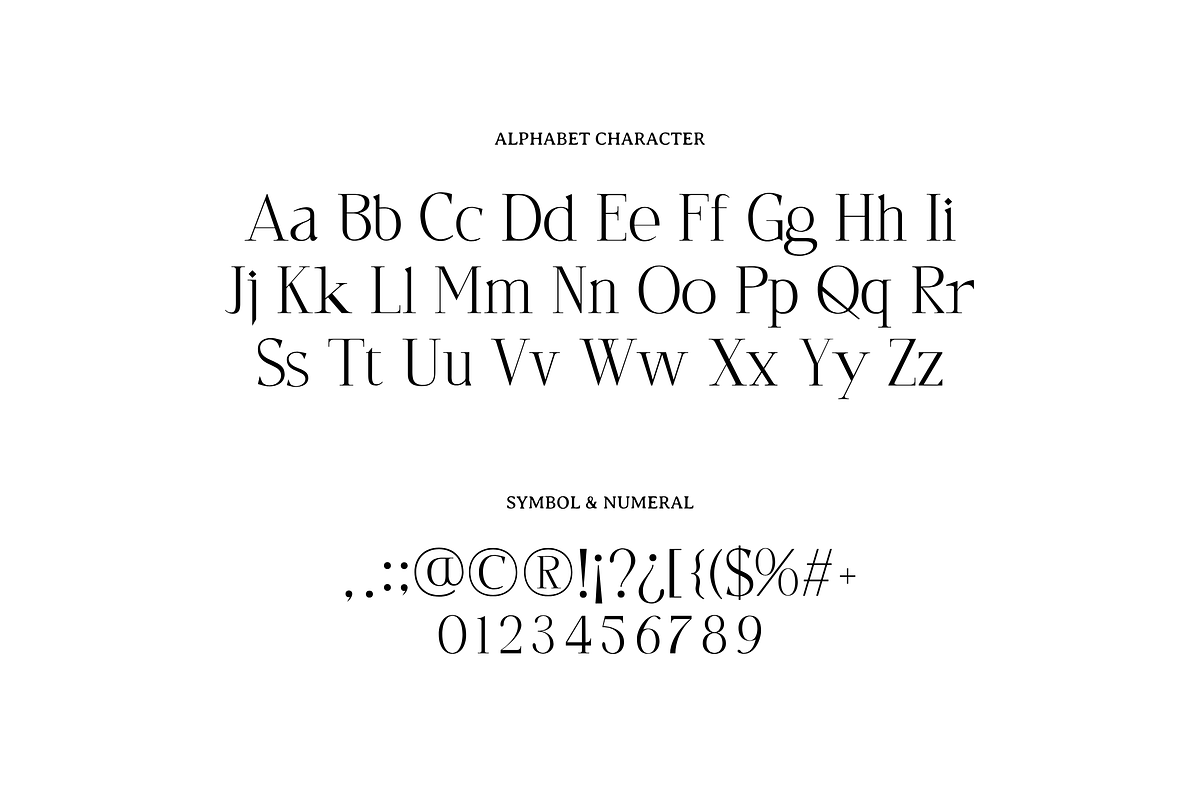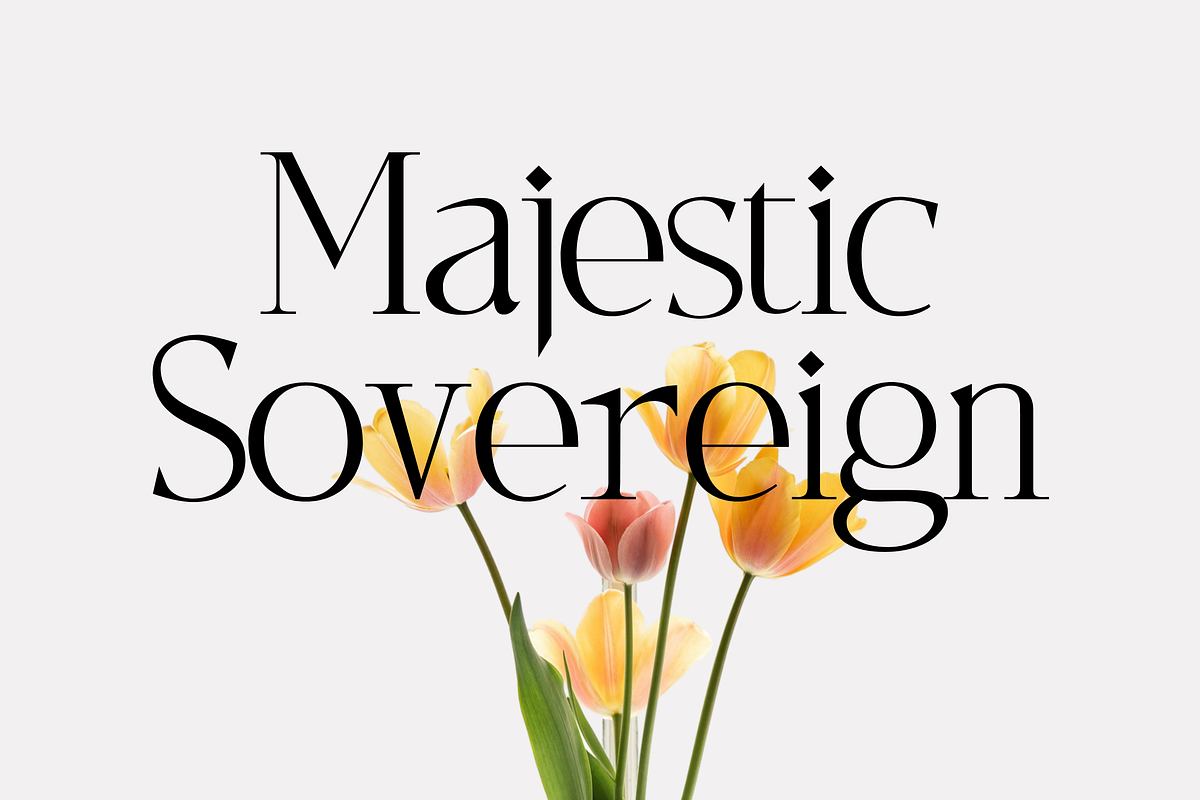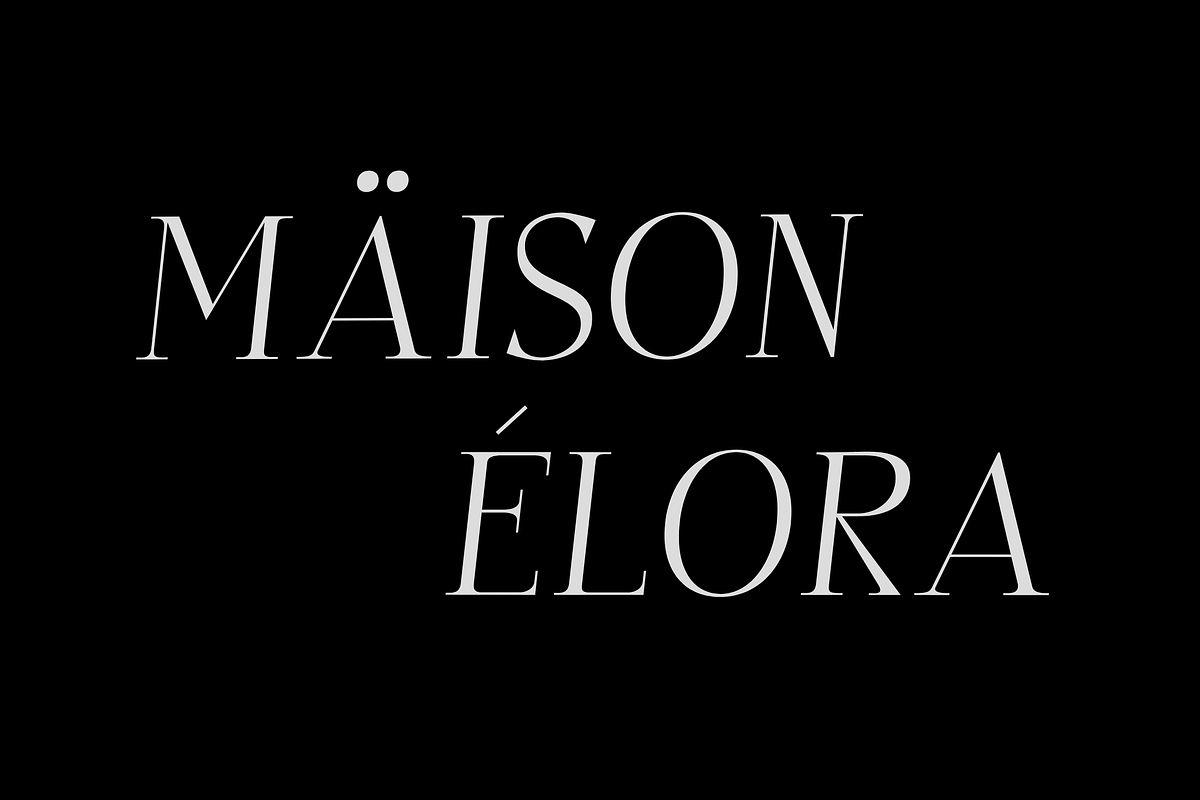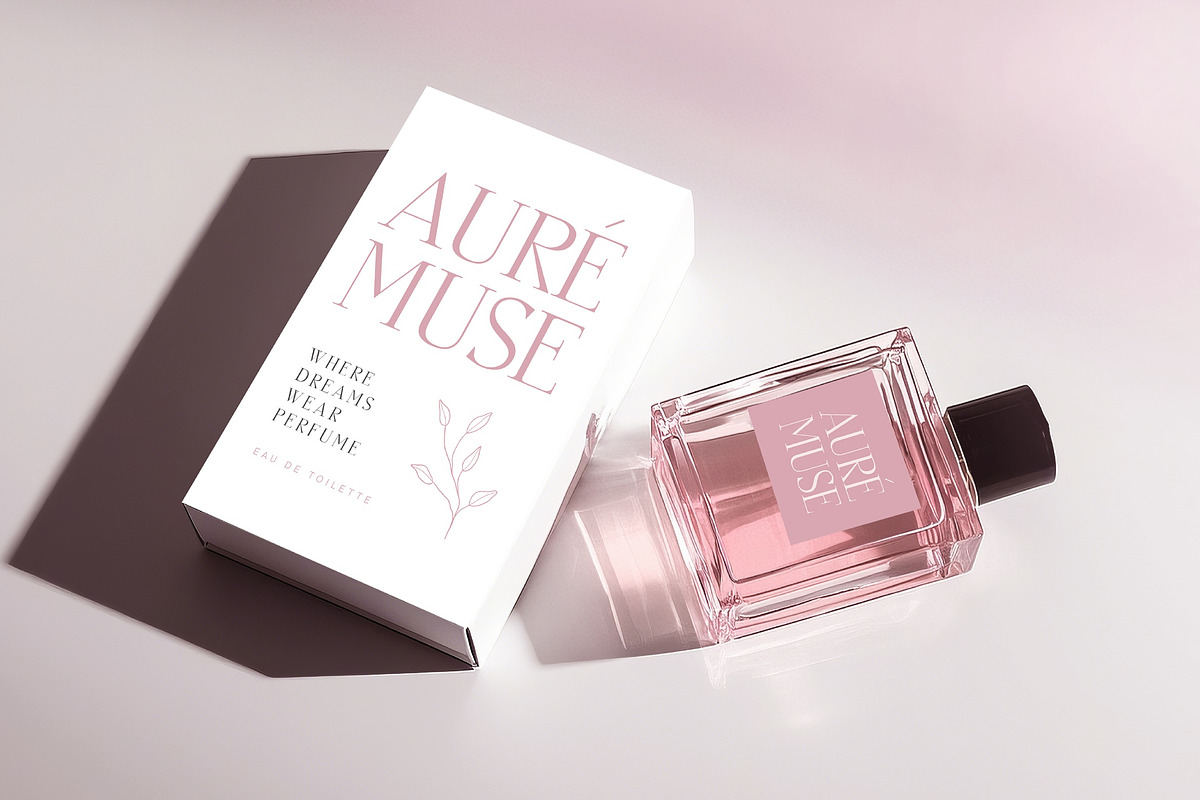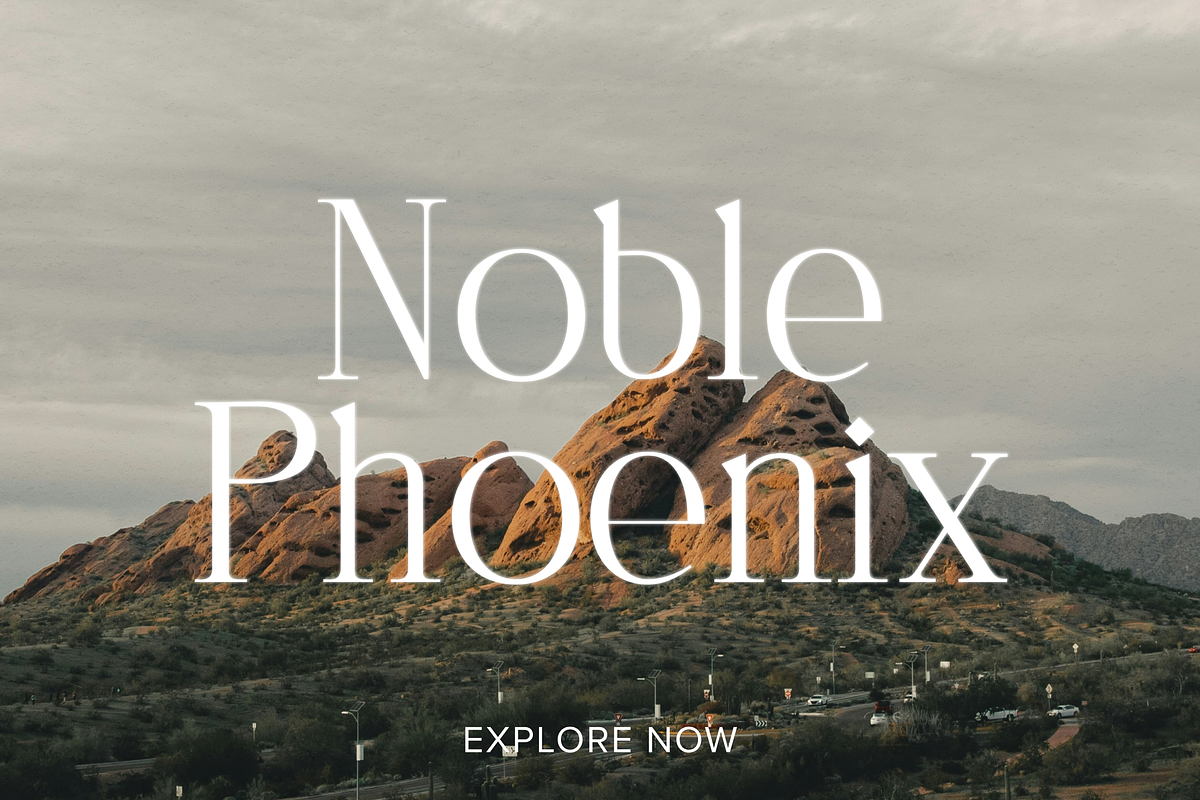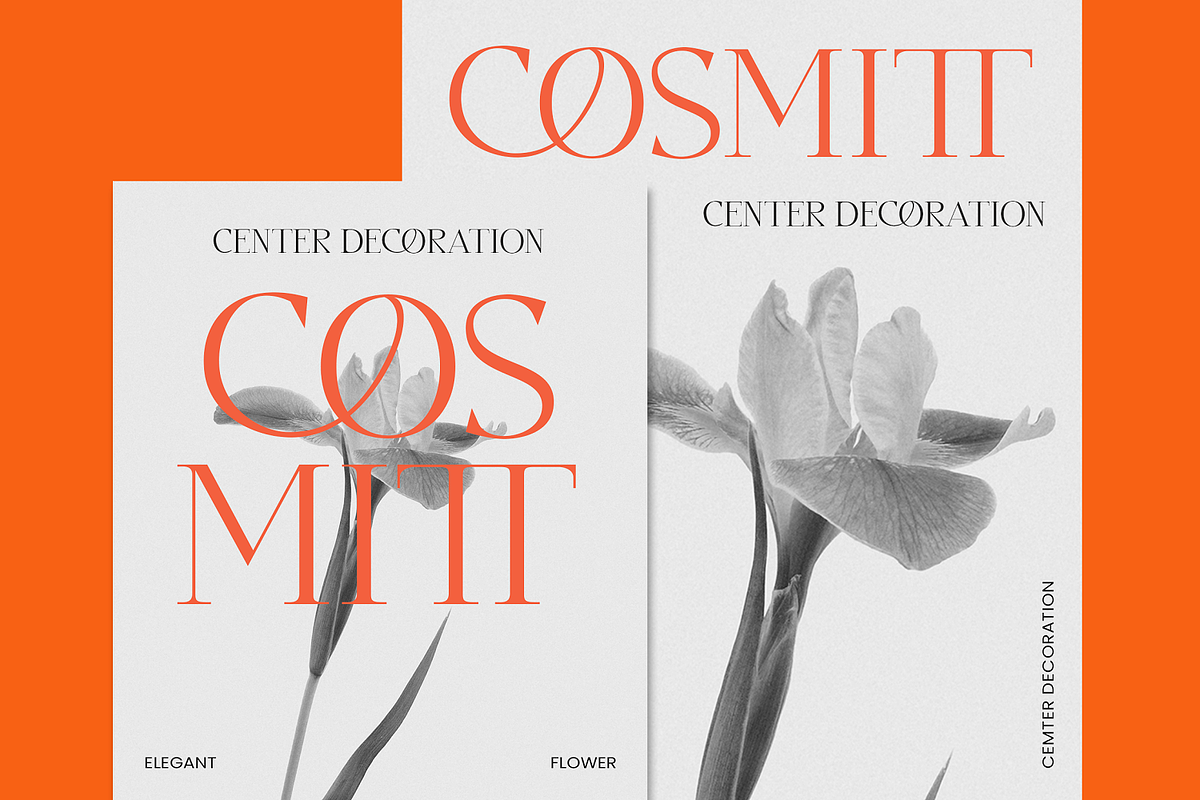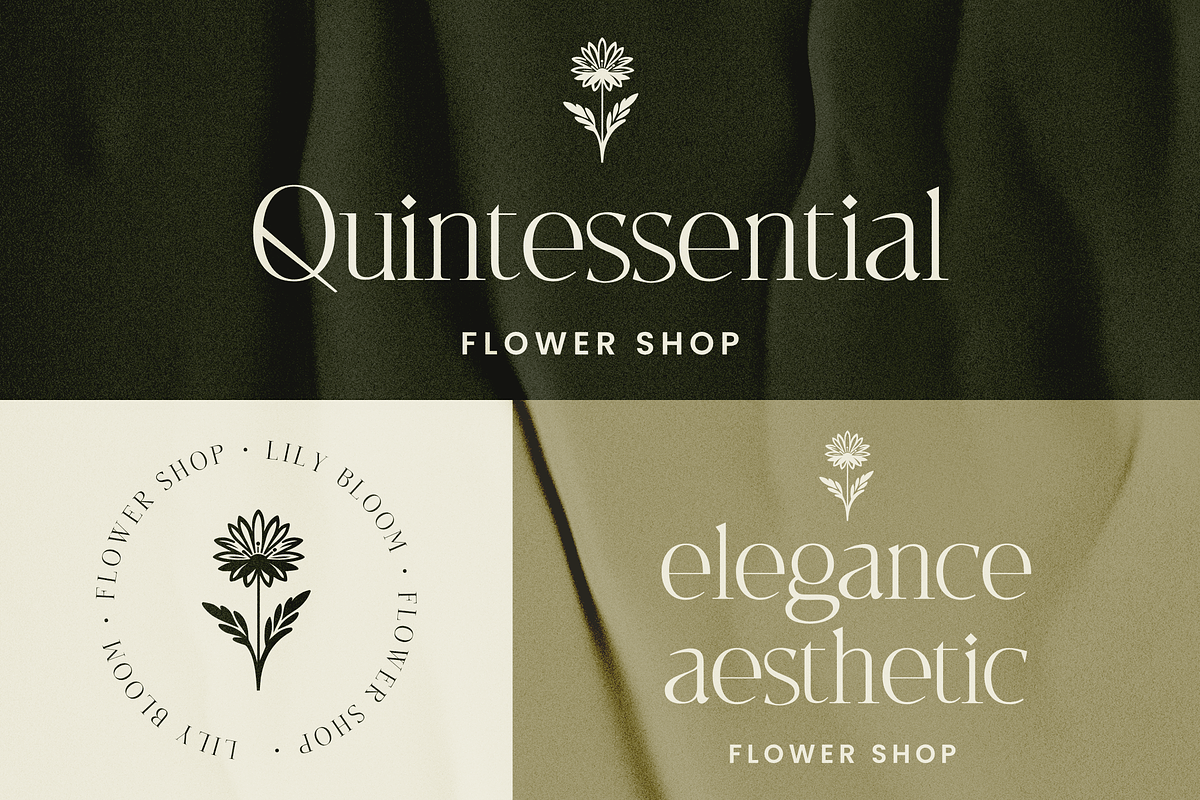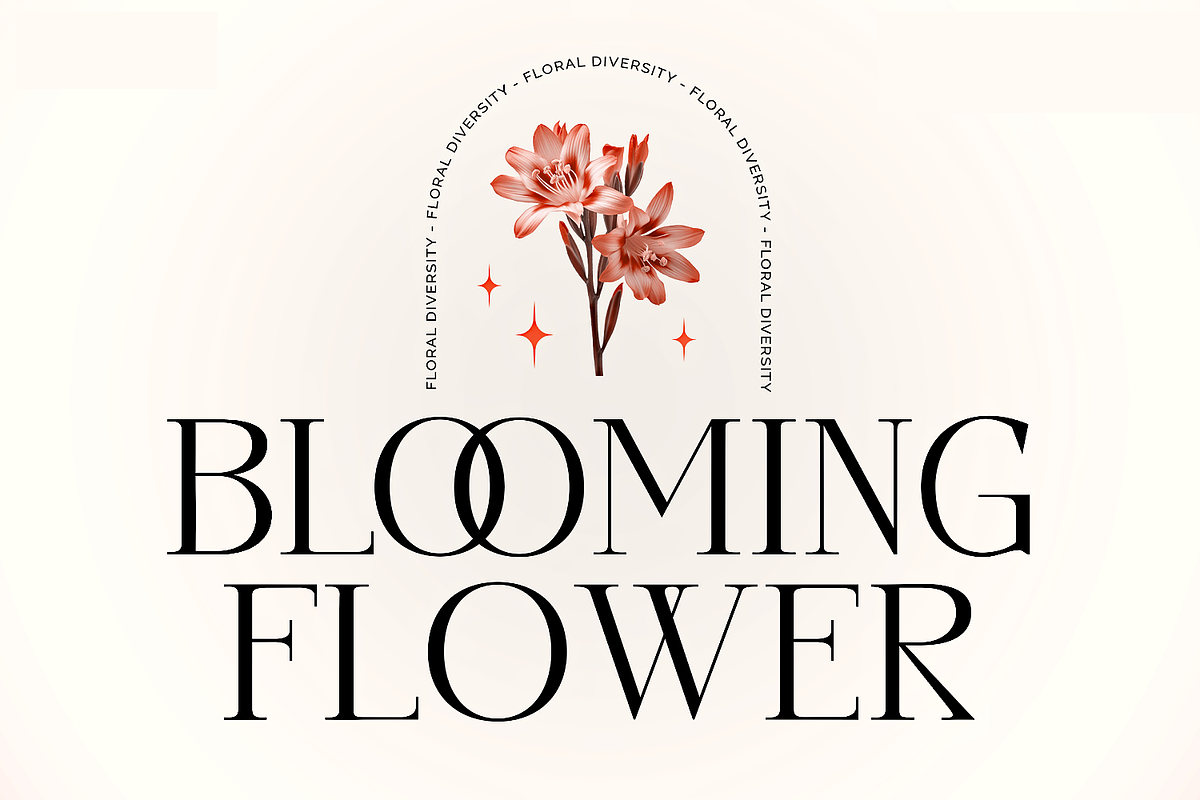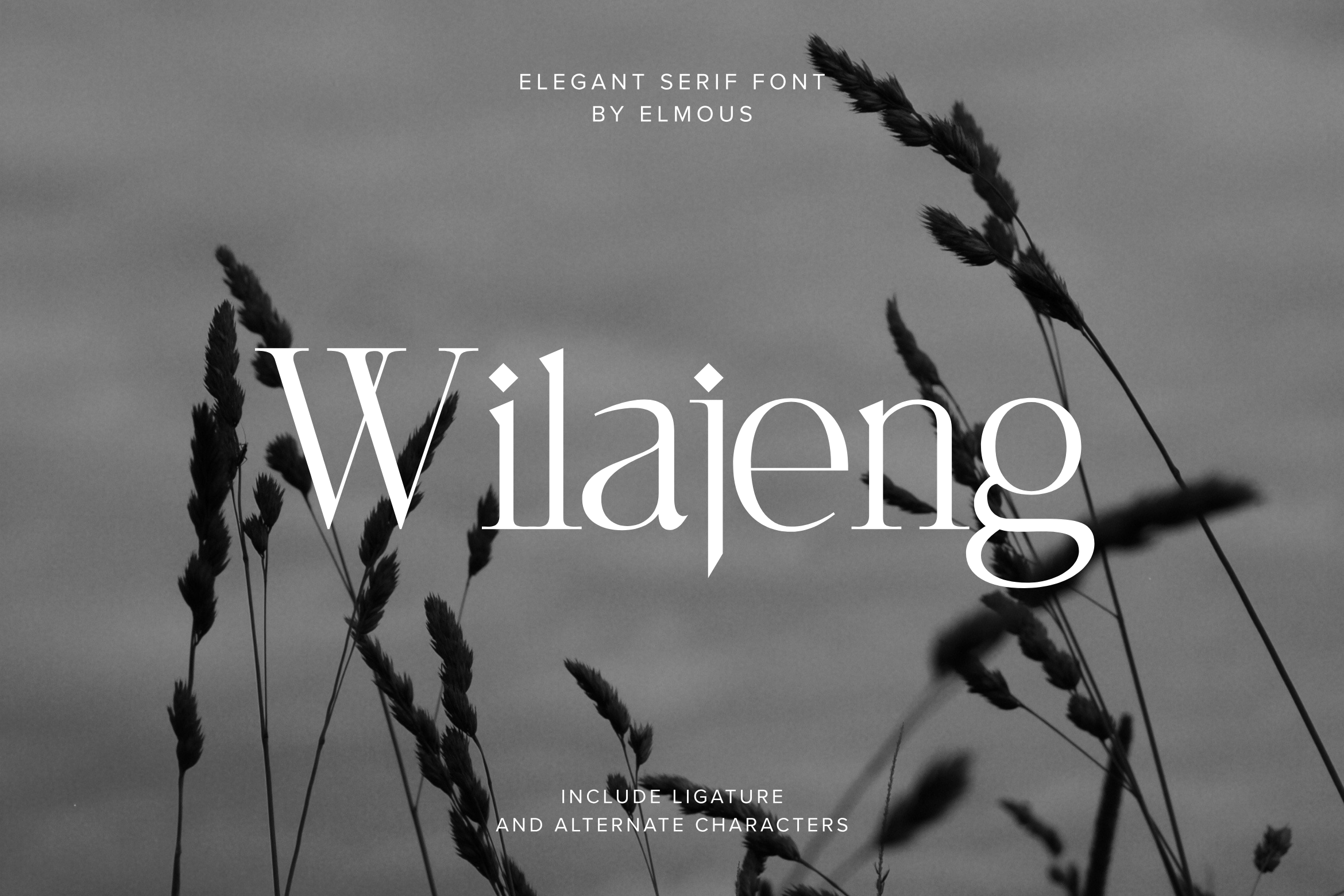
Wilajeng - Classy Elegant Serif Font
Regiba is a elegant serif font with characters a balanced proportion with uniform stroke widths and subtle serifs, giving it a contemporary and authoritative appearance.
This font would be well suited for headline, editorial, sophisticated branding, titles, design where a touch of elegance is desired, logo, fashion related concept, social media posts, product packaging (perfume, cosmetics, skincare), product designs, wedding invitations, event stationery, and much more.
Uppercase and Lowecase Characters.
Numerals and Punctuations.
Alternates and Ligatures.
Multilingual Support.
PUA Encoded Characters - Fully accessible without additional design software.